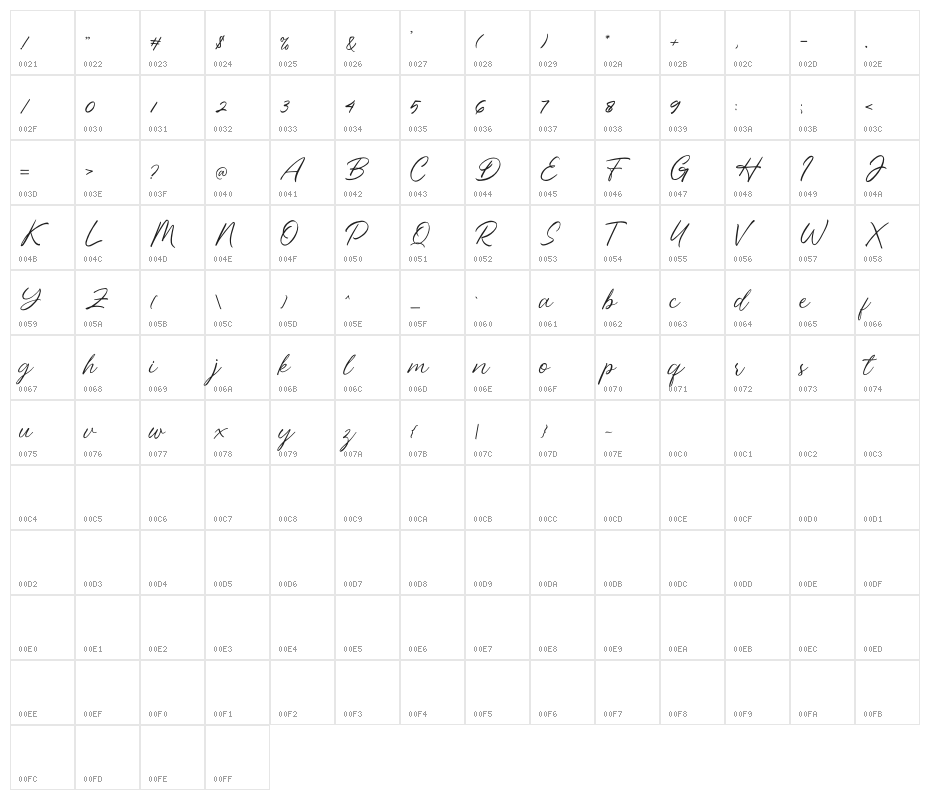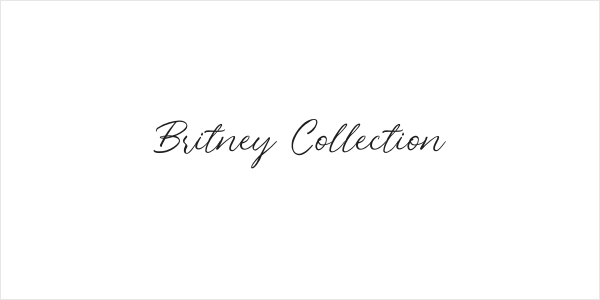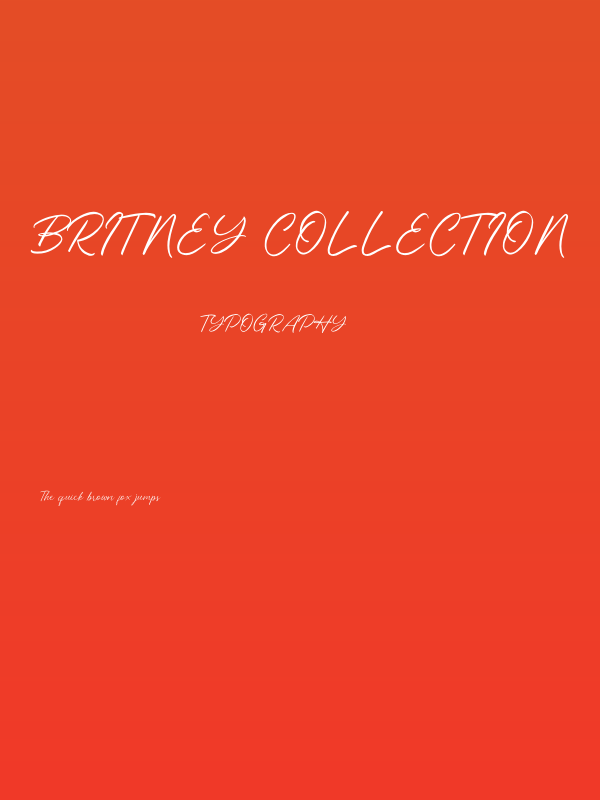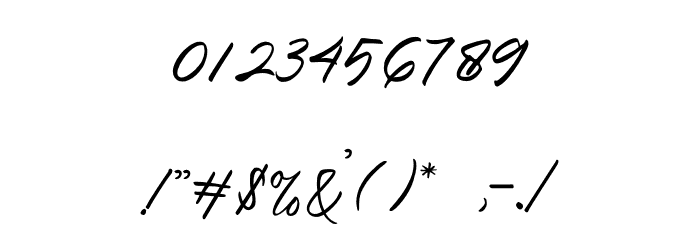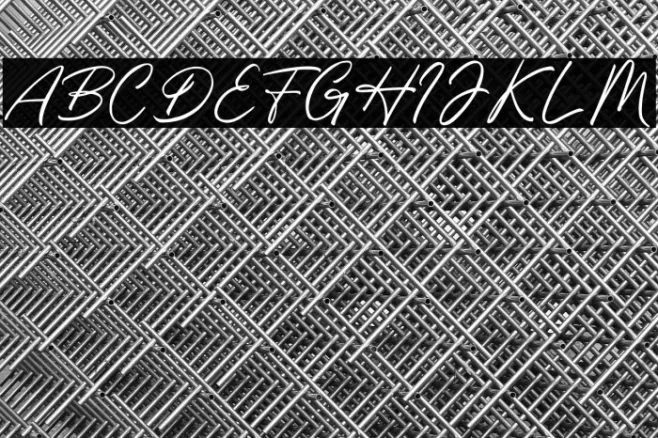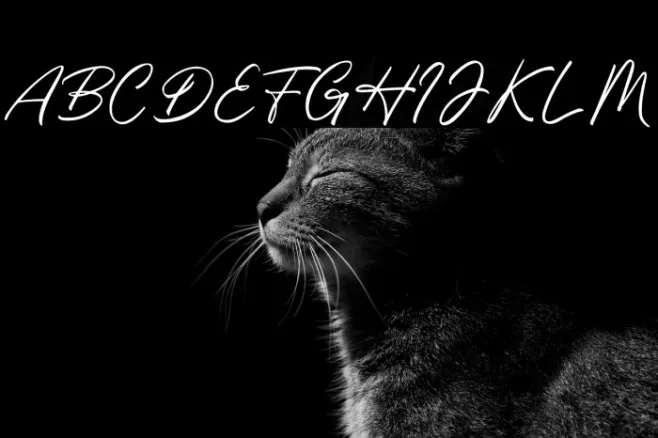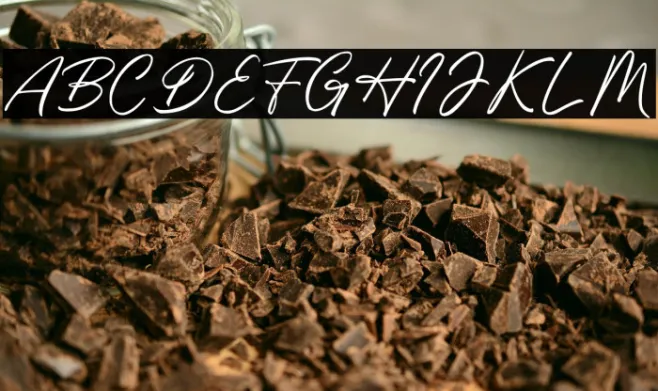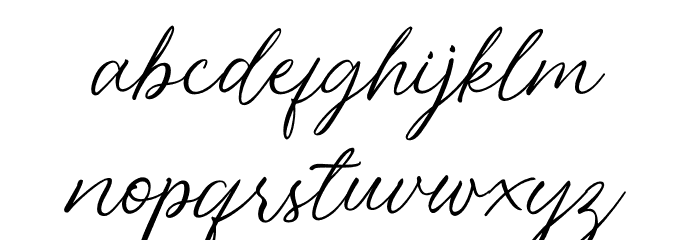
Britney Collection Font
Britney Collection Description
This font exudes elegance and sophistication with its flowing, cursive style. The characters are crafted with smooth, sweeping lines that mimic the fluidity of handwriting. Each letter is distinct yet harmonizes beautifully with the others, creating a cohesive and stylish appearance. The uppercase letters are slightly more elaborate, adding a touch of grandeur, while the lowercase letters maintain a graceful simplicity. Numbers and special characters are designed with the same attention to detail, ensuring consistency throughout. The overall aesthetic is both modern and timeless, making it suitable for a variety of applications.
| Overall Style | Elegant, Modern |
| Proposed Projects | Ideal for wedding invitations, elegant branding, personal stationery, and artistic projects. |